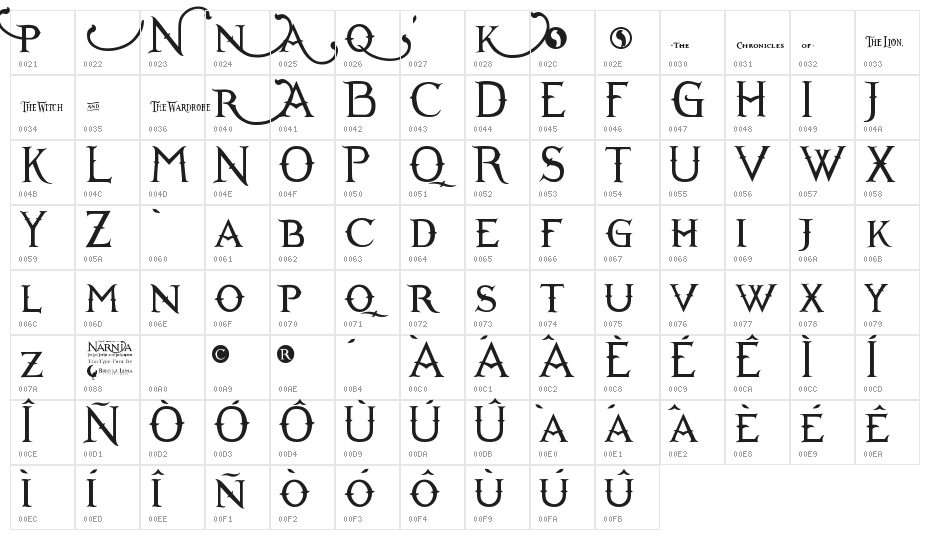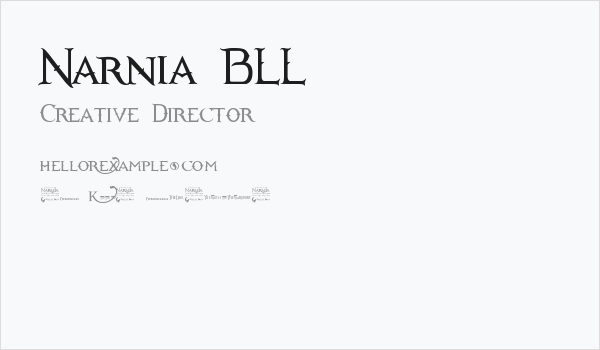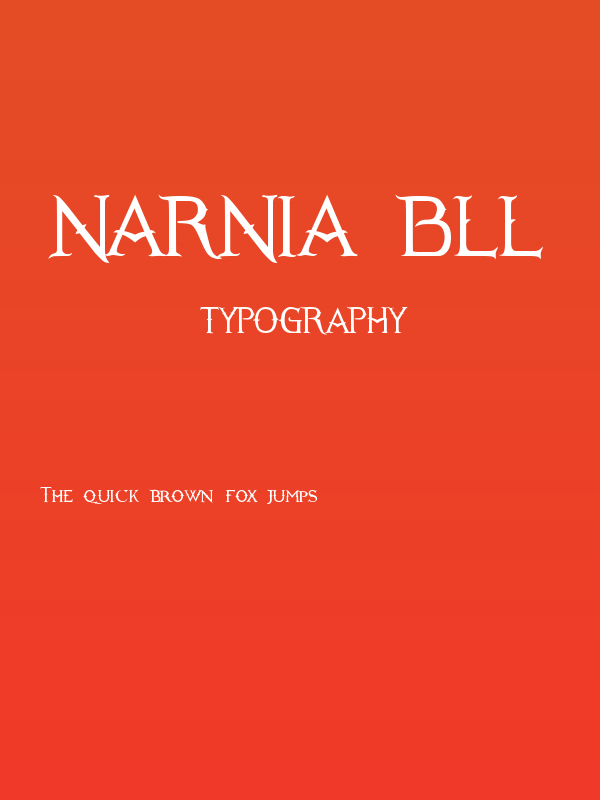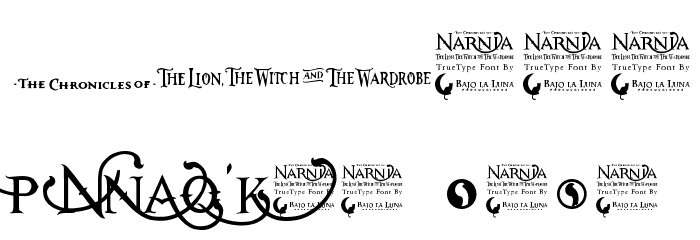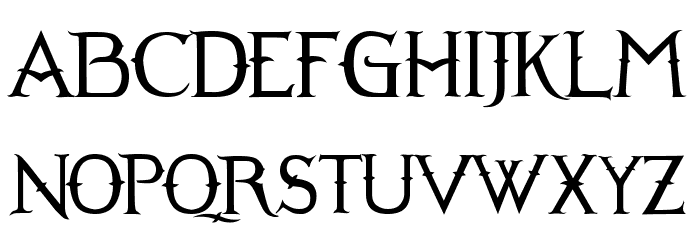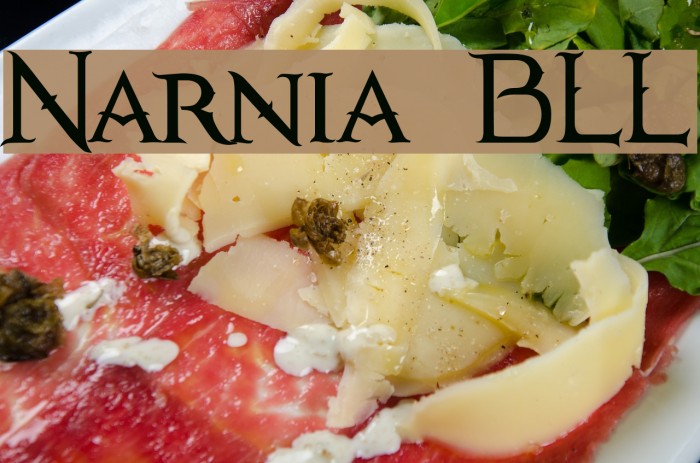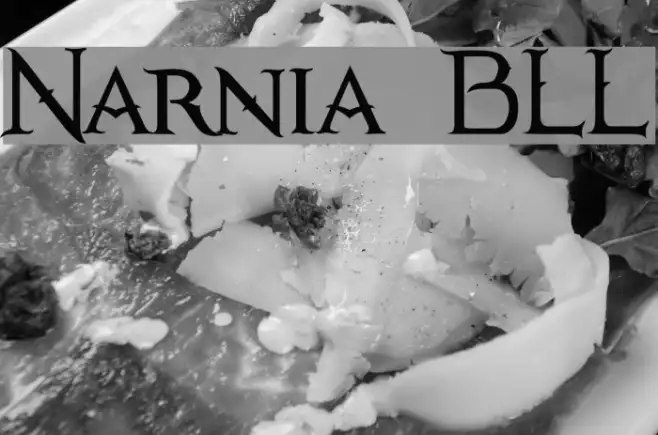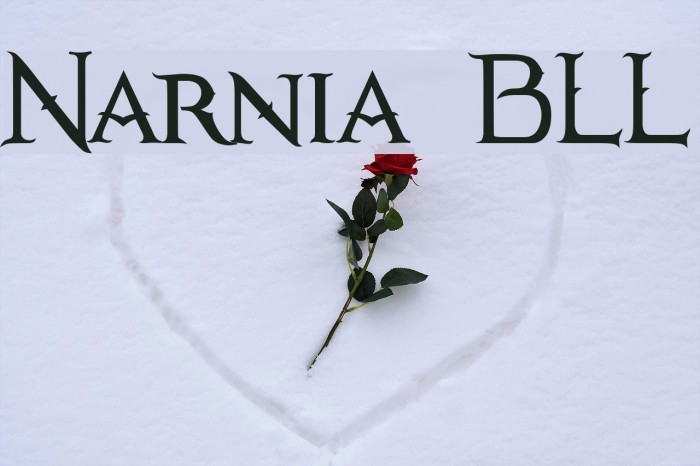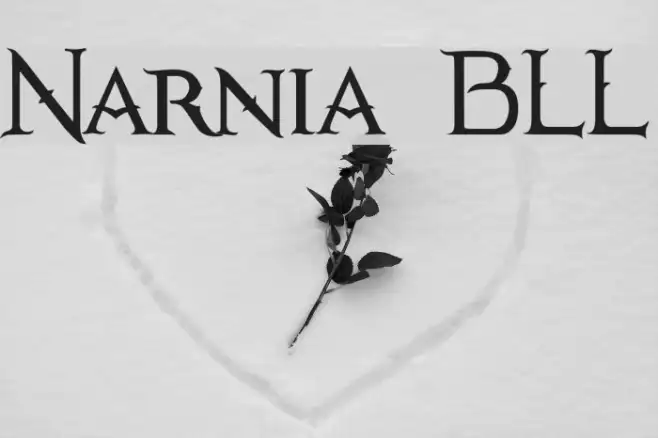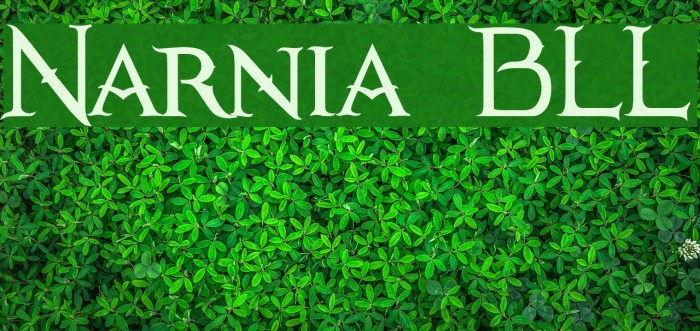
Narnia BLL Font
Narnia BLL Description
This font features a distinctive, decorative style with a medieval and fantasy-inspired aesthetic. The characters are embellished with unique serifs and flourishes, giving them an ornate appearance. The uppercase letters are bold and commanding, while the lowercase letters maintain the same decorative flair. The numbers and special characters are designed to match the overall theme, making them suitable for fantasy-themed projects. The font's intricate details and artistic elements make it stand out, capturing the essence of a magical and mythical world.
| Overall Style | Fantasy, Decorative |
| Proposed Projects | Ideal for fantasy book covers, movie posters, themed event invitations, and game titles. |